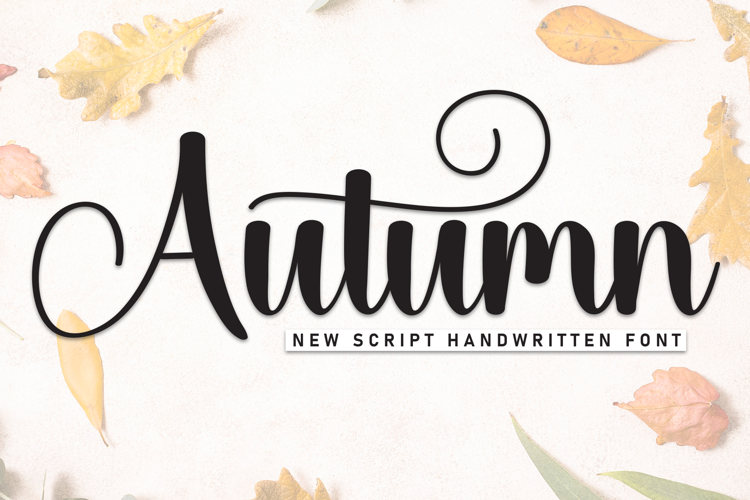
Autumn Harvest Font Duo
This hand-crafted font is a whimsical Autumn font sporting leaves with perfectly matched script.
• The letters are not perfectly uniform in size or shape.
• There may be slight variations in the spacing between letters and words.
• The font may have a "wiggly" or "squiggly" appearance.
• The font may be difficult to read at small sizes.